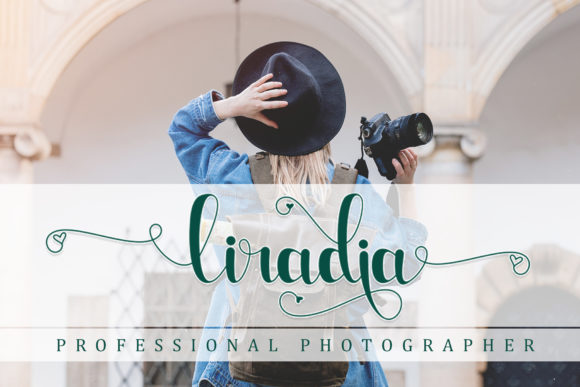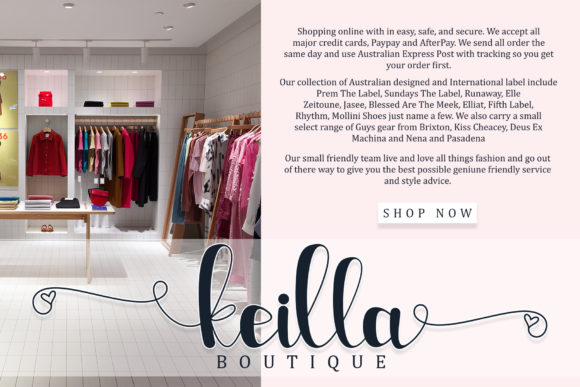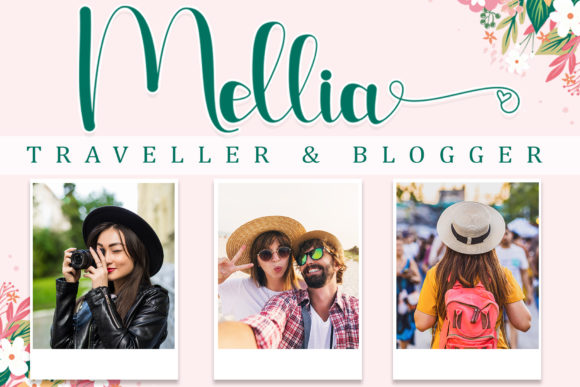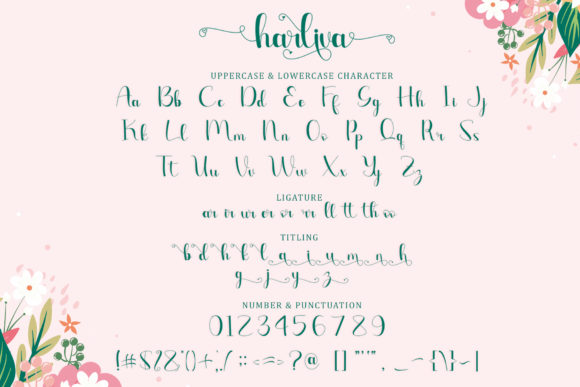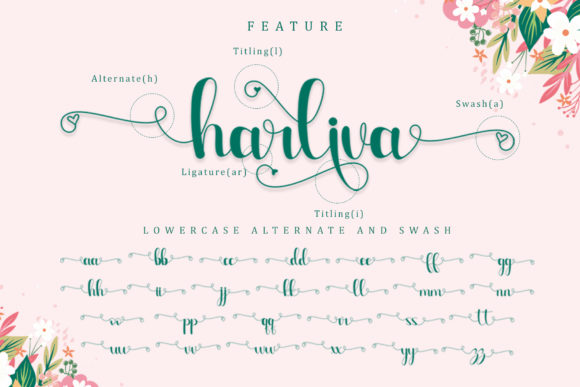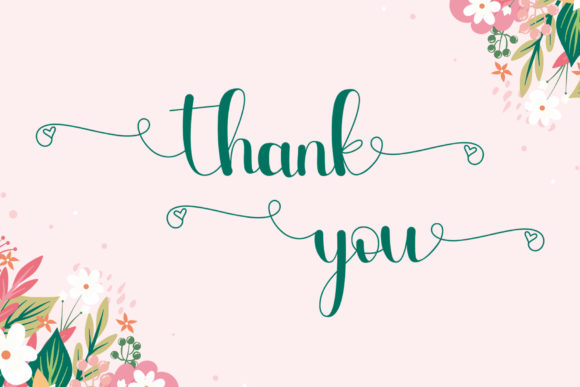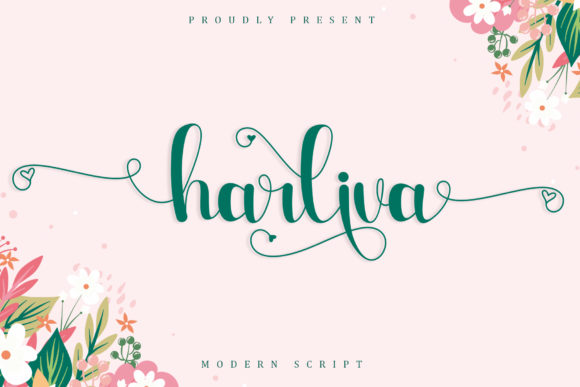
Introducing Harliva Font: The Perfect Blend of Modernity and Romance
In the world of typography, fonts play a crucial role in conveying emotions and setting the tone for various design projects. For designers and crafters looking for a modern and romantic touch, Harliva Font is an excellent choice. This beautiful handwritten font has gained popularity for its versatility and aesthetic appeal, making it suitable for a wide range of applications.
What Makes Harliva Font Special?
Harliva Font is a modern and romantic handwritten font that looks lovely on invitations, cards, quotes, greeting cards, logos, business cards, and every other design you can think of. Its unique features include:
• Varying Baseline: Harliva Font boasts a varying baseline that adds a touch of elegance and sophistication to your designs. This feature makes it perfect for creating visually appealing and dynamic text.
• Smooth Lines: The font’s smooth lines contribute to its modern and refined look. Whether you’re designing a logo or a greeting card, Harliva Font’s smooth lines ensure that your text looks sleek and polished.
• Gorgeous Glyphs: Harliva Font comes with a range of gorgeous glyphs that can enhance your designs. These glyphs can be used to add a personal touch to your projects, making them more engaging and memorable.
• Stunning Alternates: The font also features stunning alternates that provide you with more options for customizing your text. With Harliva Font, you can experiment with different styles and find the perfect fit for your design.
Why Designers and Crafters Love Harliva Font
Harliva Font has become a favorite among designers and crafters due to its versatility and aesthetic appeal. Here are some reasons why:
• Multi-Purpose: Harliva Font can be used for a wide range of design projects, from invitations and greeting cards to logos and business cards. Its versatility makes it an excellent addition to any designer’s toolkit.
• Easy to Read: Despite its elegant and cursive nature, Harliva Font remains easy to read. This makes it perfect for designs that require a touch of sophistication without compromising on readability.
• Customizable: With its range of glyphs and alternates, Harliva Font offers plenty of opportunities for customization. Designers can experiment with different styles and create unique designs that reflect their brand or personal style.
Tips for Using Harliva Font in Your Designs
To get the most out of Harliva Font, consider the following tips:
• Pair it with Other Fonts: Harliva Font pairs well with other fonts, especially sans-serif fonts. Experiment with different combinations to find the perfect match for your design.
• Experiment with Colors: Harliva Font looks great in various colors, from bold and bright to soft and pastel. Don’t be afraid to experiment with different colors to find the perfect fit for your design.
• Use it for Headings and Titles: Harliva Font is perfect for headings and titles, adding a touch of elegance and sophistication to your designs.
Harliva Font is a beautiful and versatile handwritten font that can elevate your designs to the next level. With its modern and romantic touch, it’s perfect for designers and crafters looking to add a touch of sophistication to their projects. Whether you’re designing invitations, greeting cards, logos, or business cards, Harliva Font is an excellent choice.